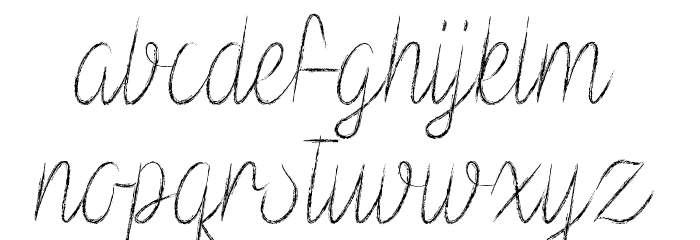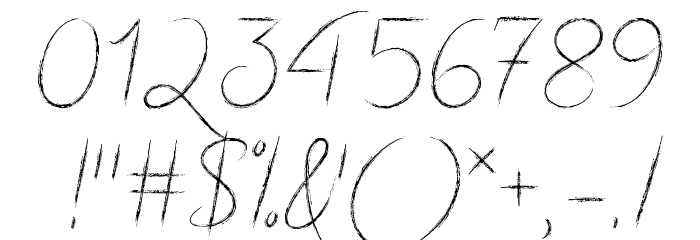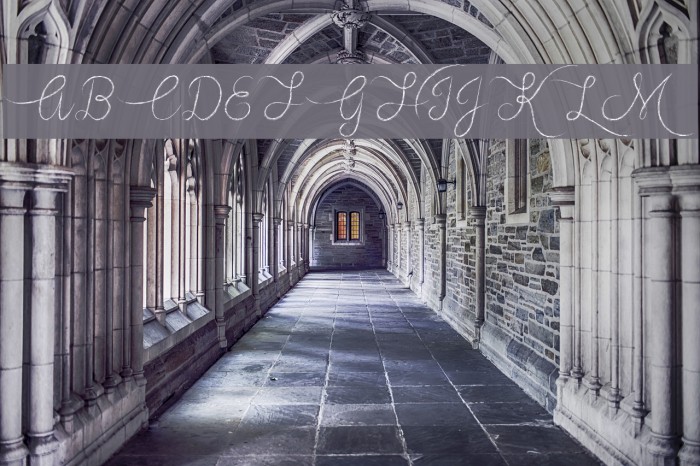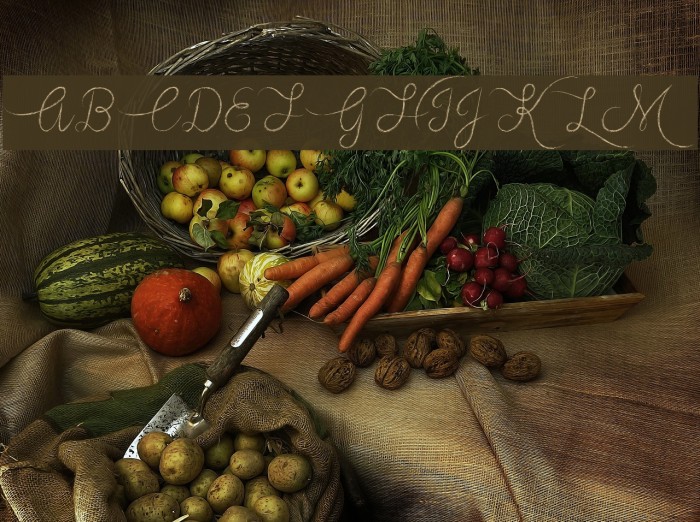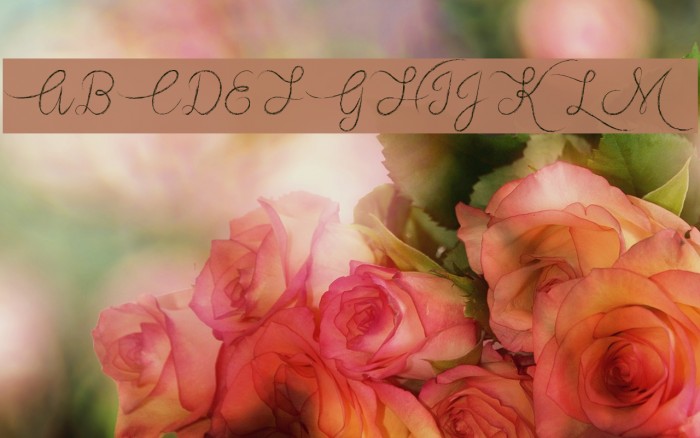
Vampire Heart Font
This font features an elegant, flowing script style that combines both uppercase and lowercase letters with a sense of fluidity and grace. The characters are connected with delicate, sweeping strokes, giving it a handwritten appearance. The uppercase letters exhibit a sophisticated flair with extended loops and curves, while the lowercase letters maintain a consistent, smooth flow. The numerals are crafted with the same attention to detail, offering a cohesive look across all characters. Special characters are integrated seamlessly, maintaining the font's overall aesthetic. The thin, wispy strokes add a touch of delicacy, making it suitable for projects that require a personal, artistic touch.
An elegant, flowing script font with delicate, connected strokes.
- Font: Vampire Heart
- Proposed Projects: Ideal for wedding invitations, personal branding, greeting cards, and artistic projects.
- Category: Script
- Weight: Light
- Character Spacing: Tight
- Overall Style: Elegant, Artistic
- Use Case: Logos, Invitations, Artistic projects